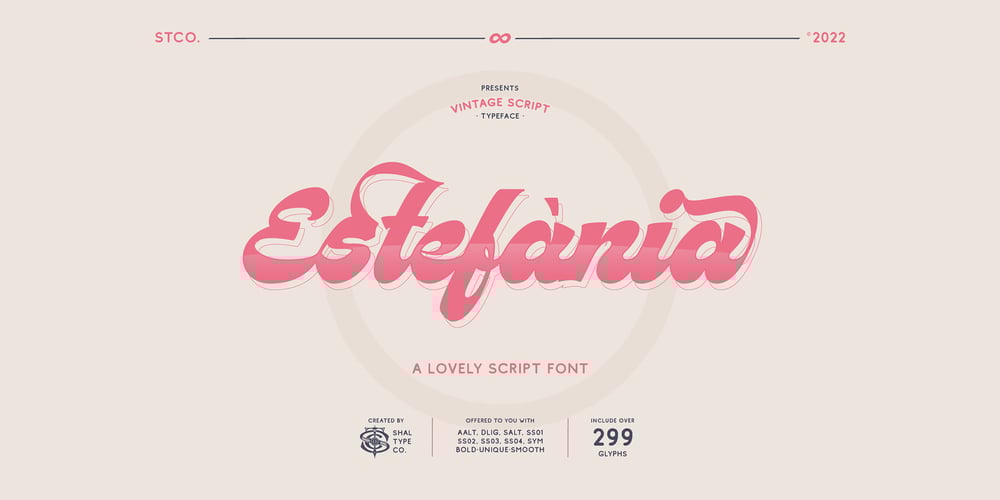
Estefania Bold Script Font Family was designed by Faishal Mahdy and published by Shaltype Co. Estefania Bold Script contains 1 styles and family package options. Estefania is based on Retro Bold Script Typeface that could fit any Graphic Project. Using bold and contrast strokes to get eye-catchy and smooth looking, this project is just born and will come with other styles and more glyphs in the future.Drawn manually by hands, and reform into a clean Typeface. Natural stroke from original lettering. It can be used for Titles or even for writing.In this font, you will get :- TTF & OTF files- WOFF & WOFF2- Over 299 Glyphs- 11 OpenType features- Support Multilingual languagesGet Estefania now! It will be best used for any design requirement, many fonts will come with a unique concept.Thank you! Best Regards, FM-STCO.